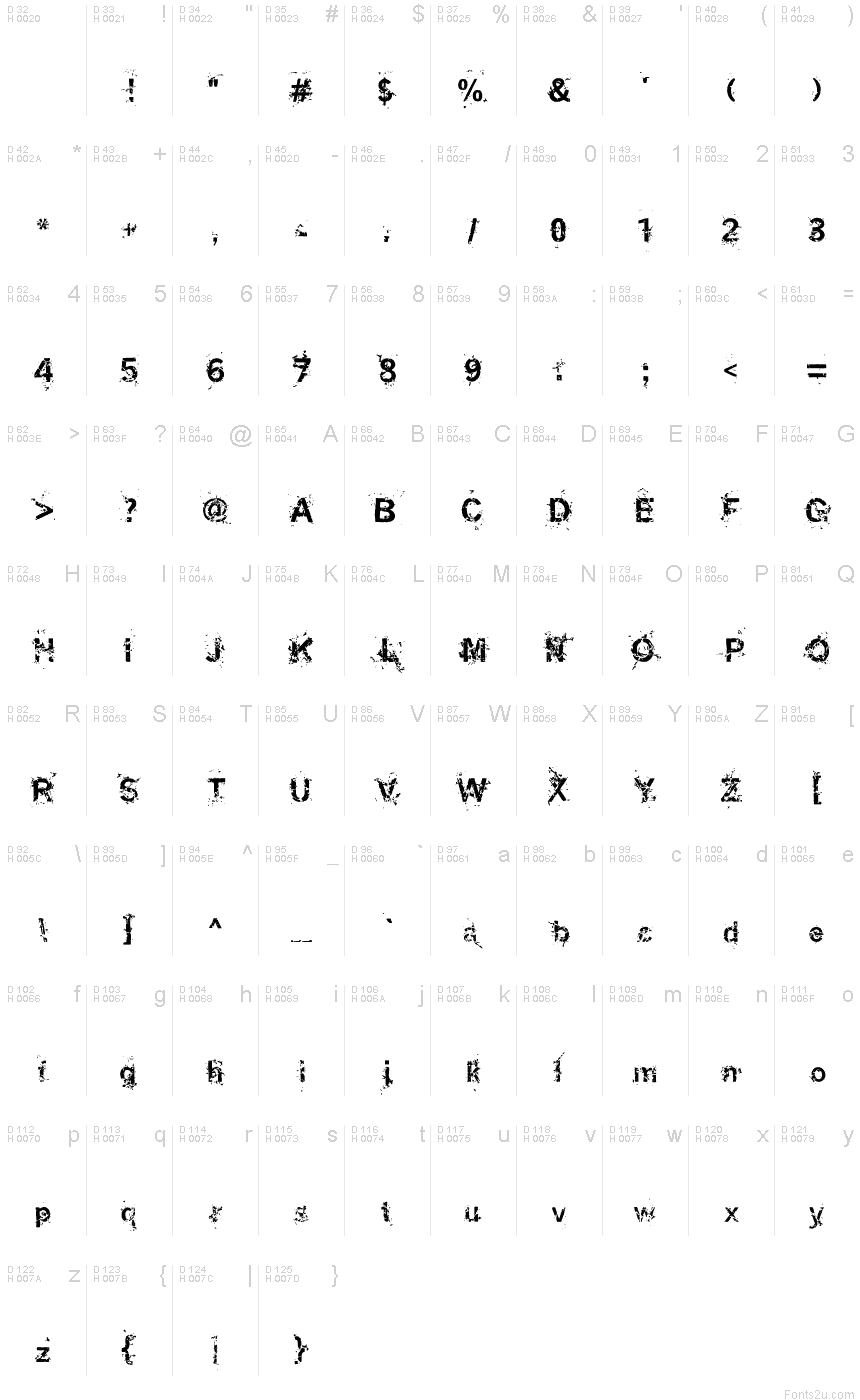
Miasm Outfection
Miasm Outfection font by Andi Jones is a free distorted display font with rough, broken letterforms and a scattered distressed texture. The shapes look scraped and worn down, with irregular cutouts and splatter-like gaps that give each character a damaged, urban edge.
Miasm Outfection works well for grunge posters, horror titles, underground event flyers, album art, and edgy brand graphics that need a raw printed effect. This free font brings that fractured surface into logos and short display lines, where the broken texture can carry the whole design without much extra styling.